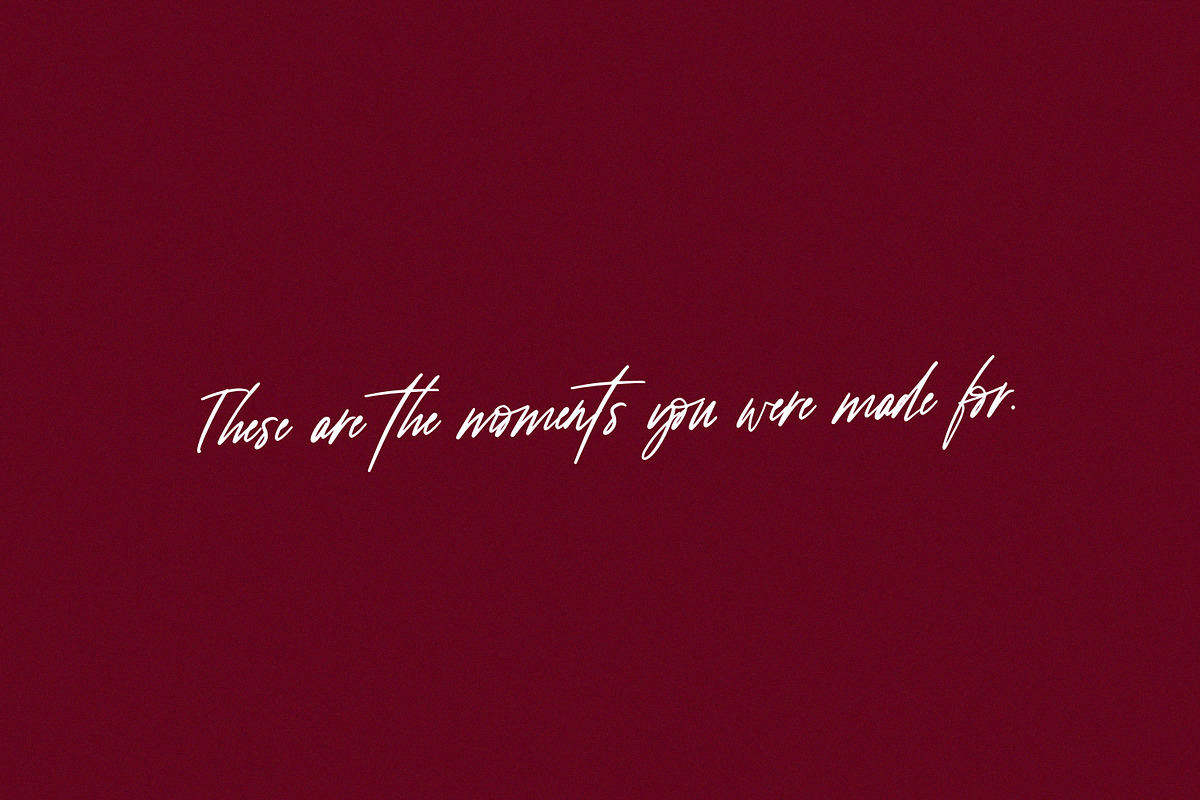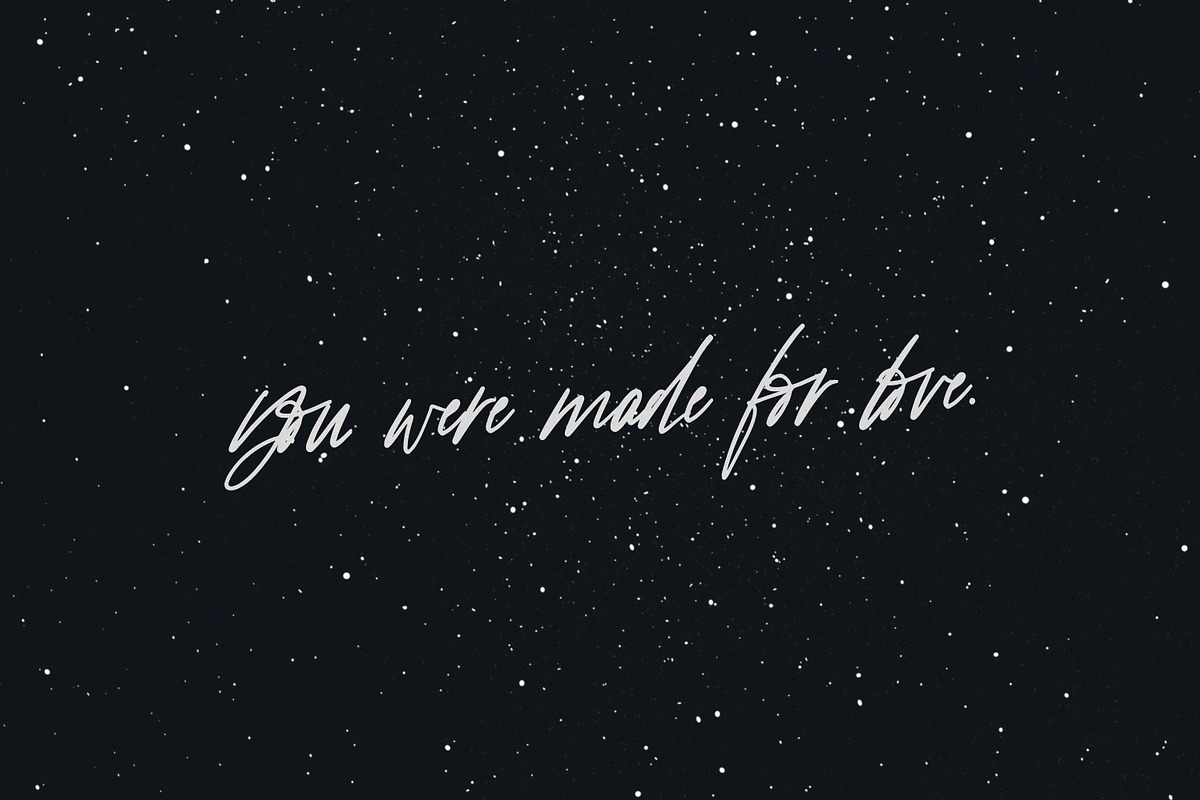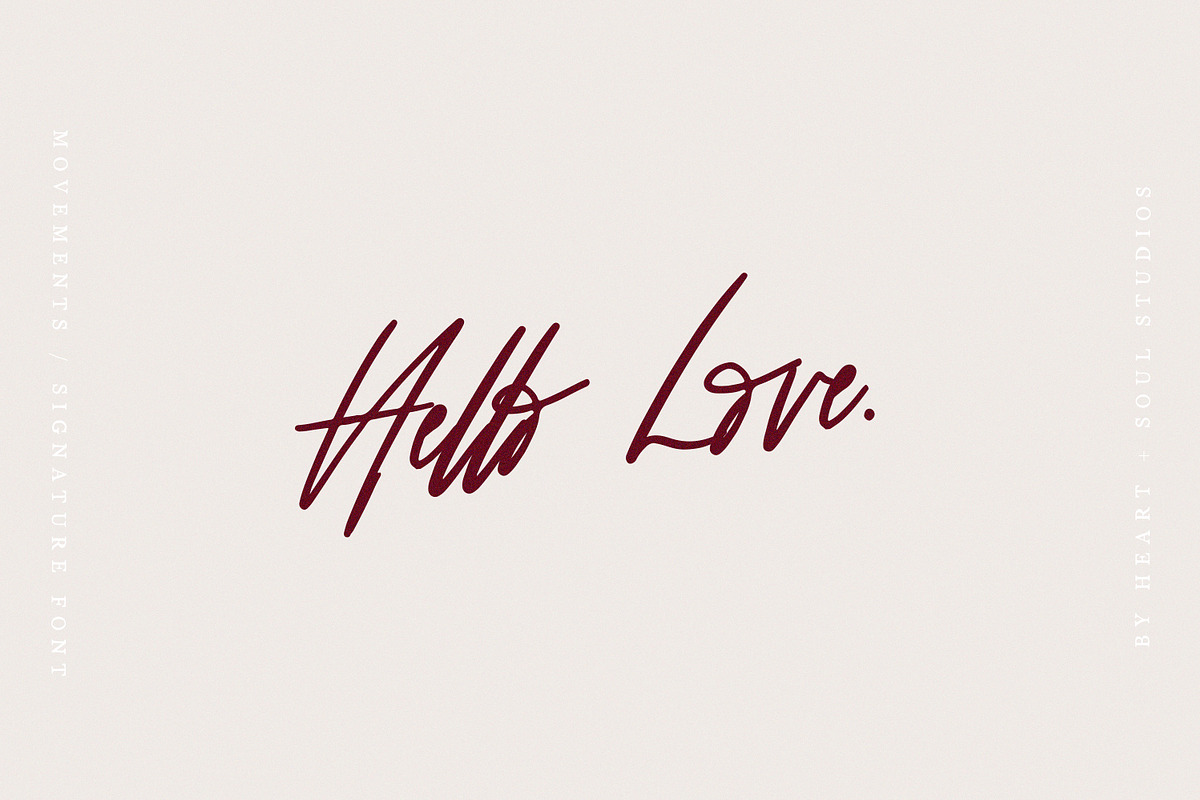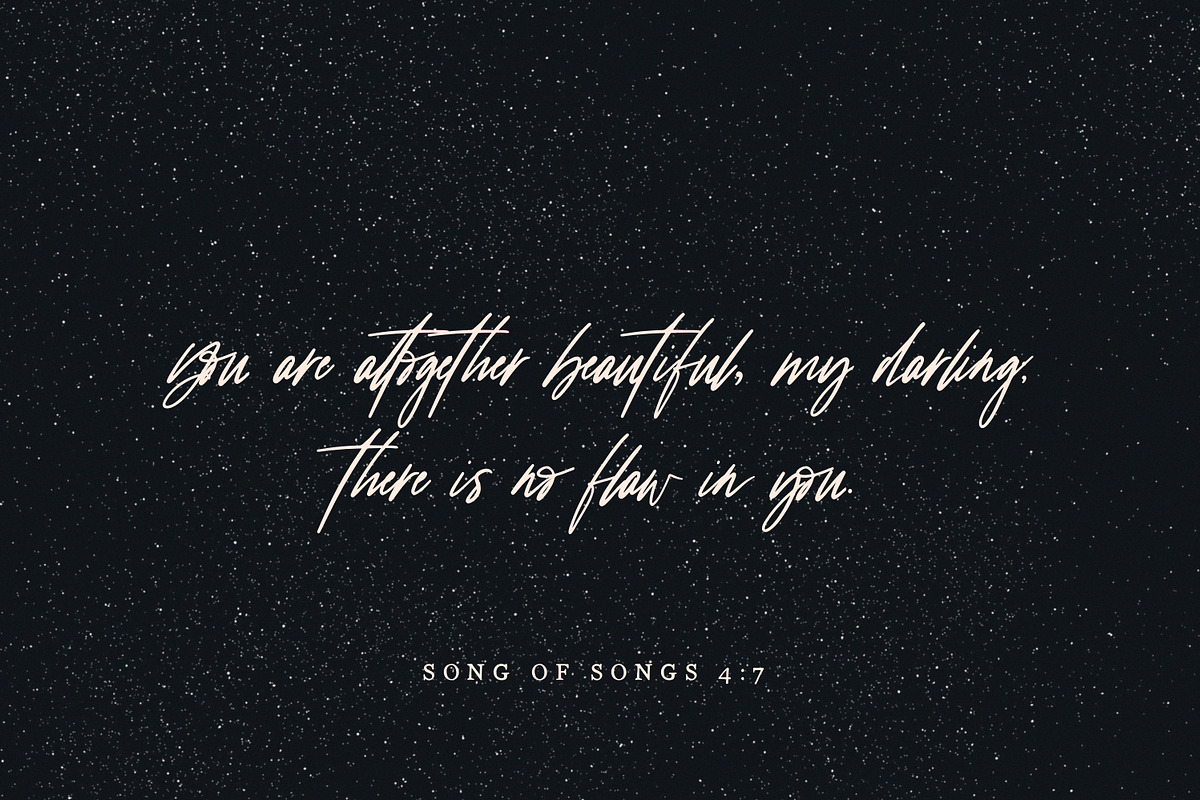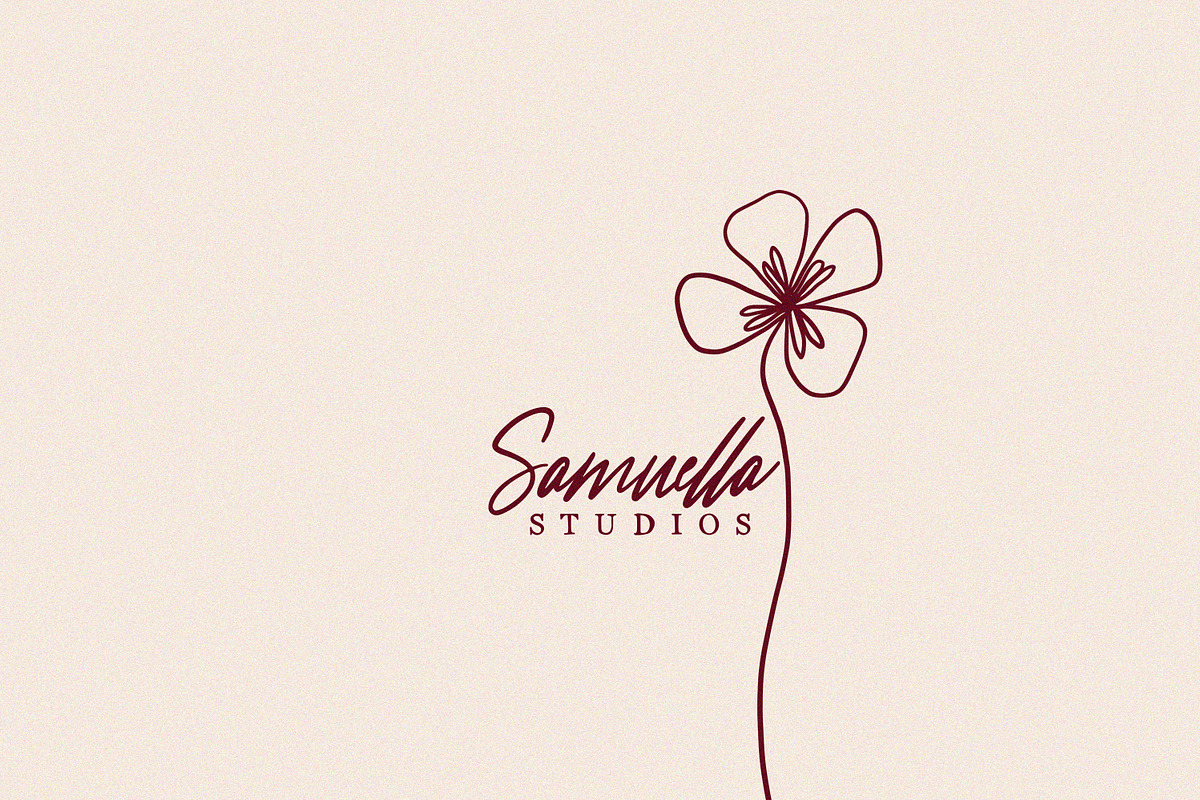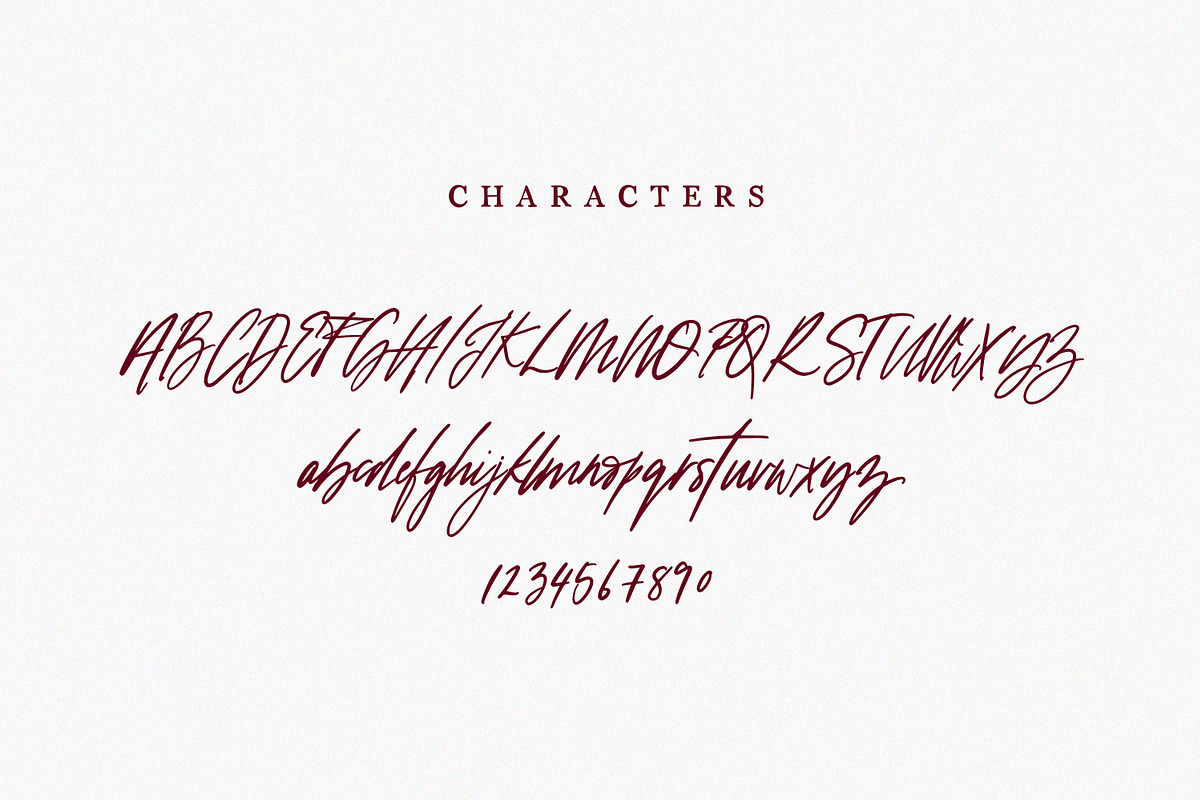
Movements | Handwritten Font
Inspired by the way the One who loves moves in power and passion and so directs those who follow Him, Movements is a handwritten signature-style script font, with an elegant, powerful feel.
Perfect for quotes, albums, logos, invitations, websites, branding and more!
For the one desperate to move in the grace and peace they were made for.